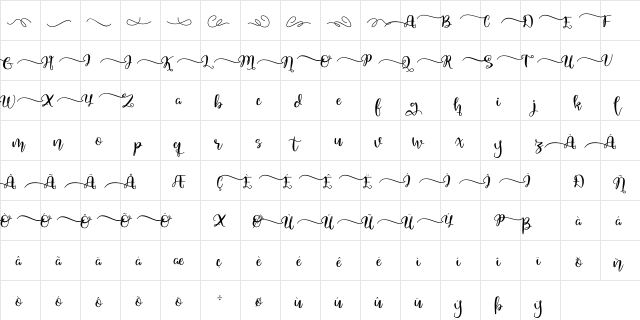
QuakedSwash Regular
Design Context for QuakedSwash Typeface
QuakedSwash flows with the natural rhythm of handwritten lettering, making it ideal for designs that call for warmth and personal expression.
Font Pairing: Combine QuakedSwash with a simple geometric sans for maximum contrast — the tension between flowing curves and clean structure is a classic typographic pairing.
Pro Tip: Use QuakedSwash for short runs of text — names, titles, or taglines. Extended body copy in script faces tires the eye quickly.